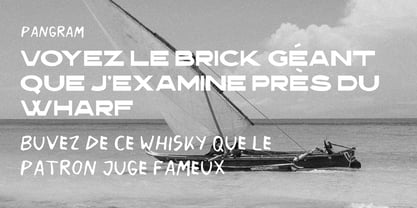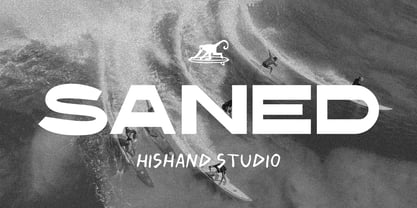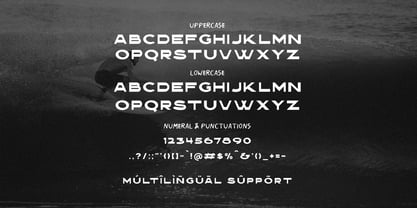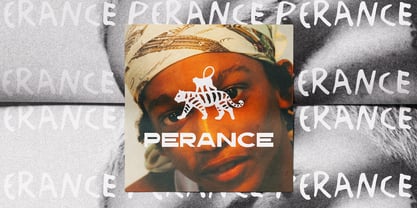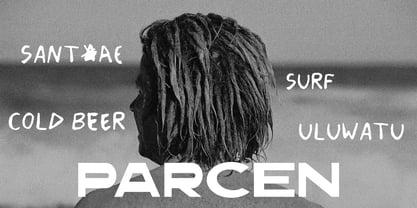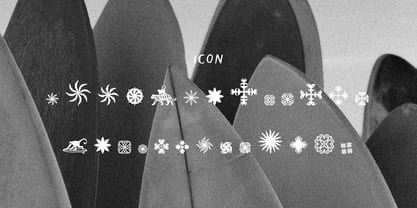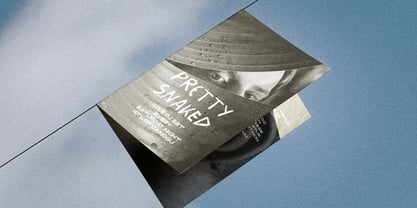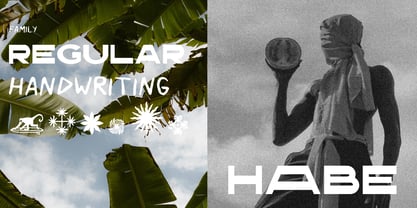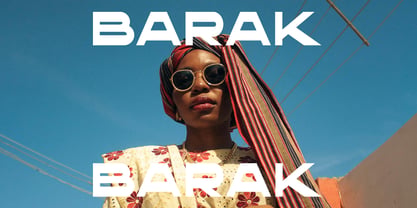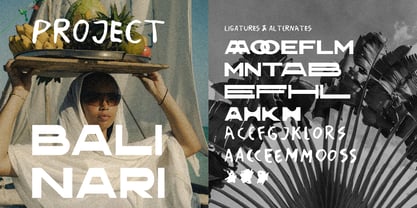
Saned
by Hishand Studio
The Saned Font Family was designed by Putu Dody Permana and published by Hishand Studio. Saned contains 3 styles and family package options. More about this family
Saned is a modern sans serif display font designed to bring a clean yet striking aesthetic to any visual project. With its balanced proportions, smooth curves, and confident structure, Saned delivers a cool, contemporary feel that stands out without overwhelming the design. It is crafted to work beautifully in headlines, branding, posters, and social media visuals where clarity and style matter equally.
What makes Saned unique is its thoughtfully paired handwriting companion. The handwriting feels natural, simple, and authentic, perfectly complementing the main font while adding human touch. This combination creates a harmonious contrast that enhances versatility across creative applications.
To complete the family, Saned also includes 26 aesthetic icons. These icons are designed with the same visual language, making it easy to build cohesive and visually appealing compositions with minimal effort. Complete with
- ligatures
- alternates
- regular
- hand-writing
- icon
- kerning
- multilingual support